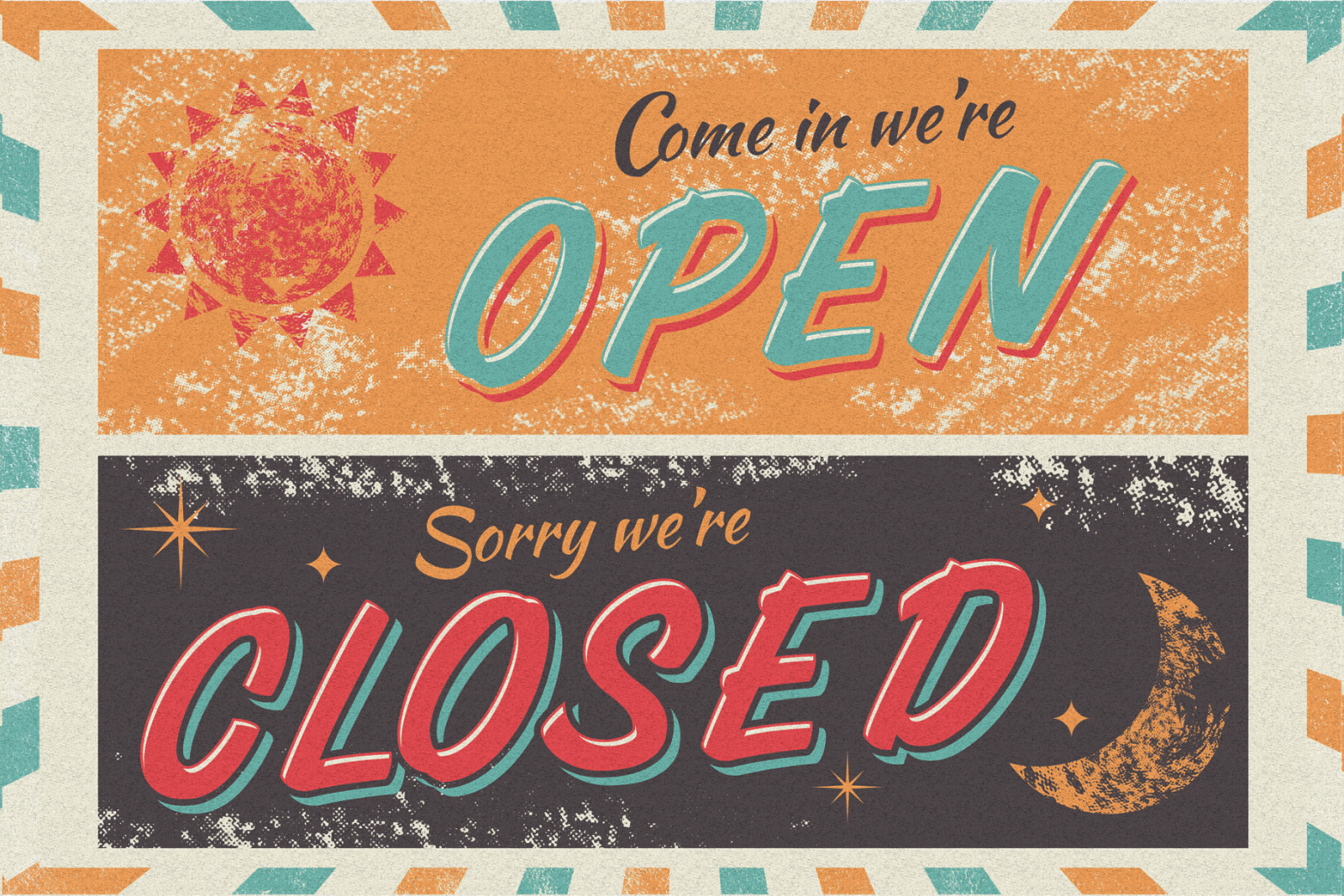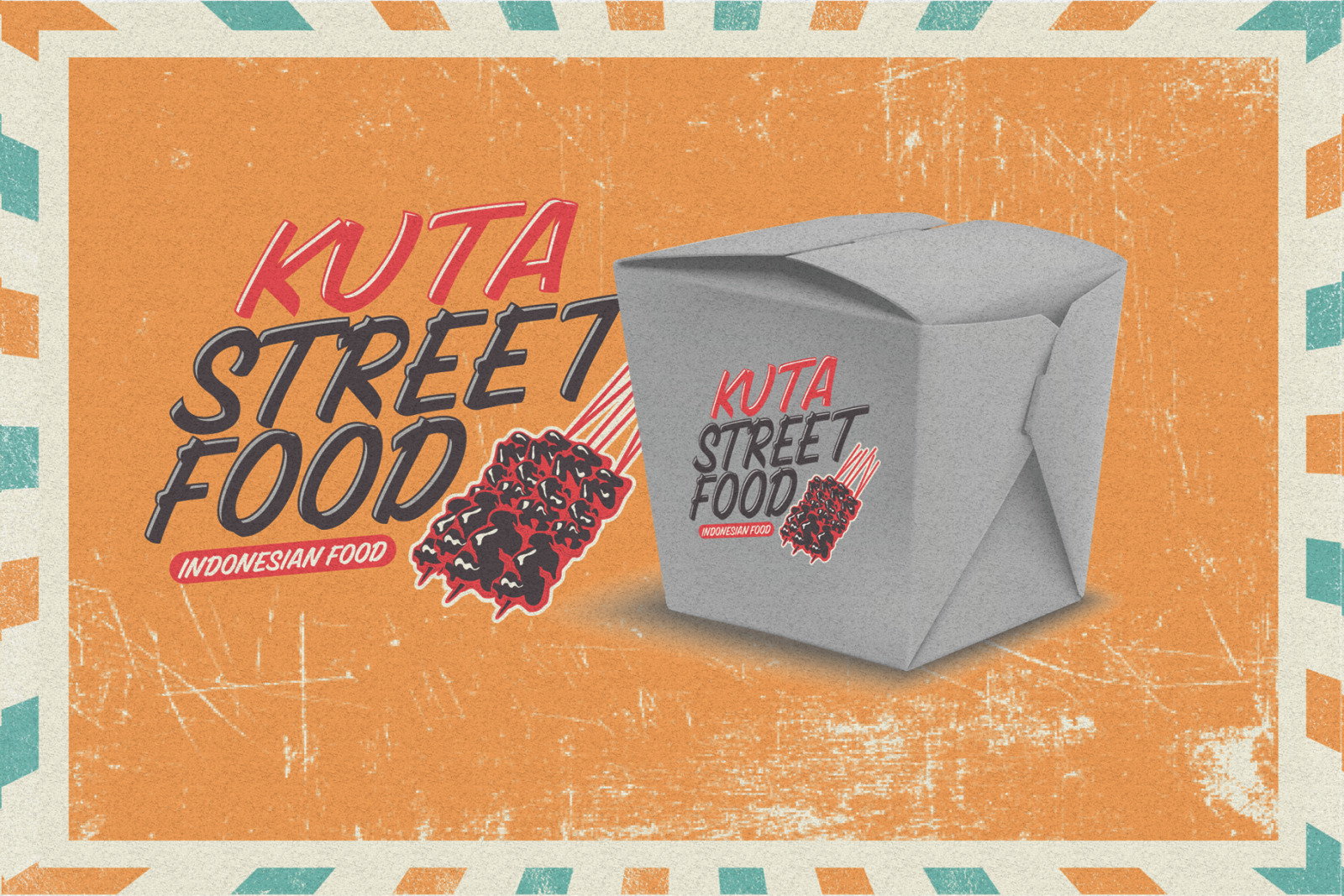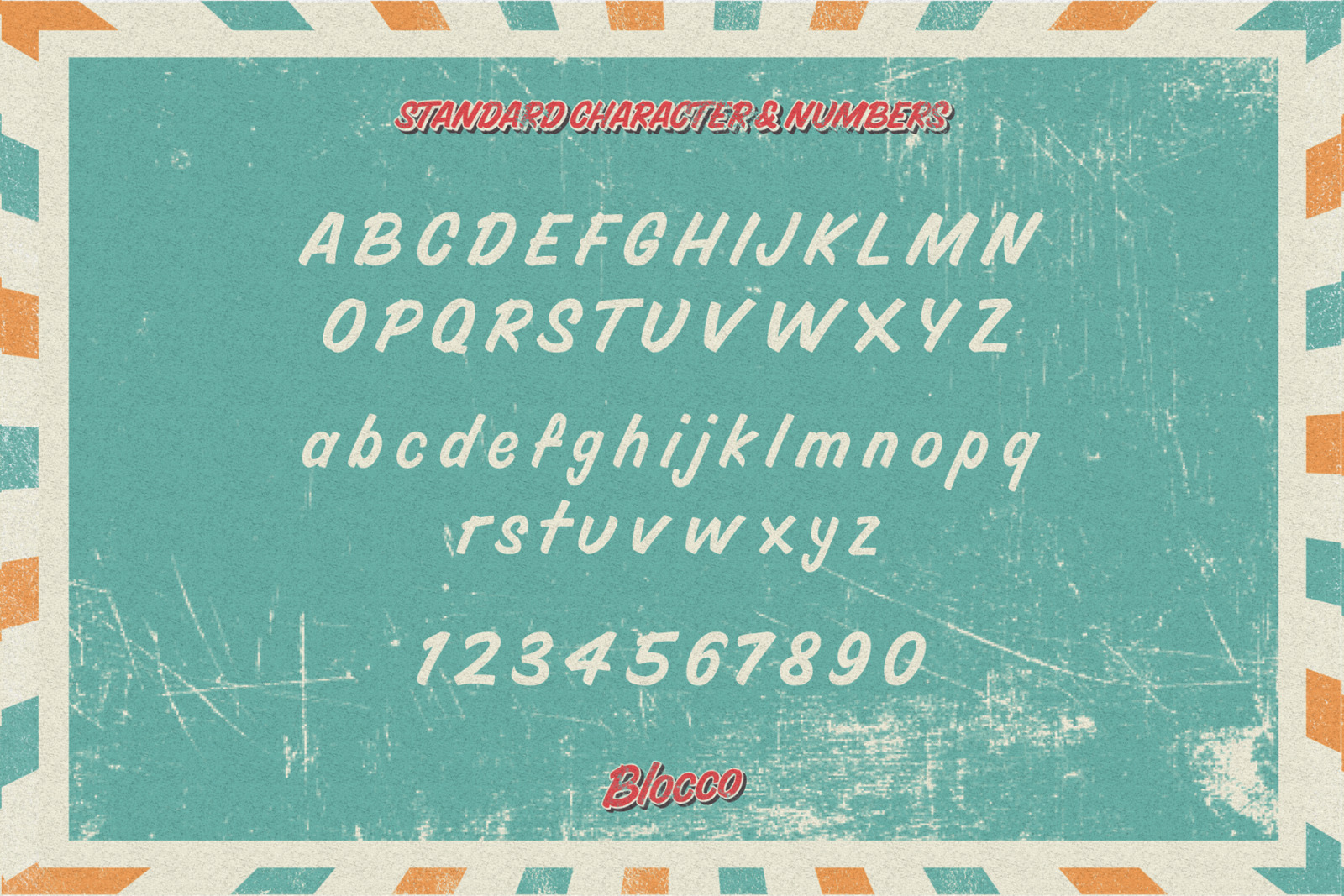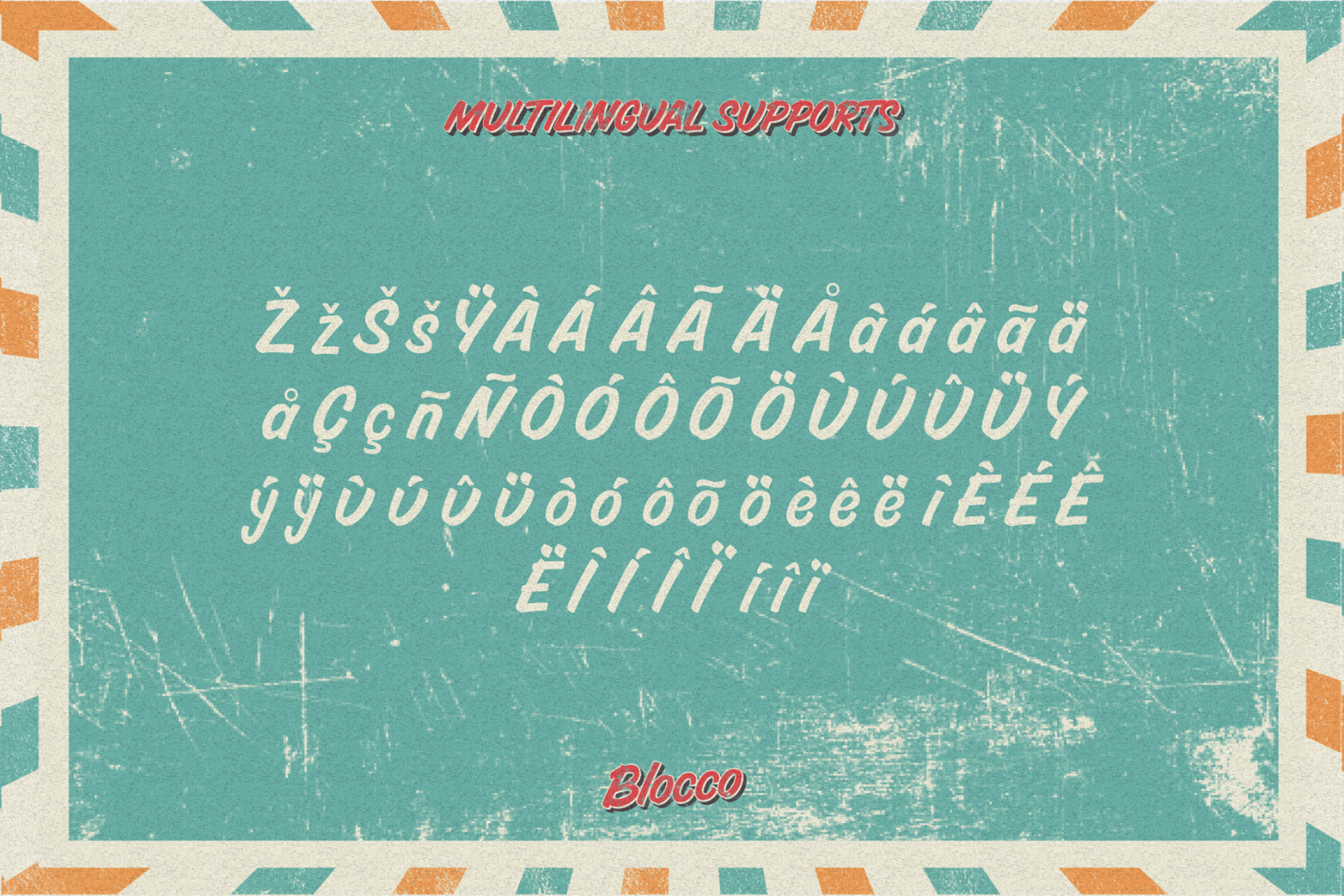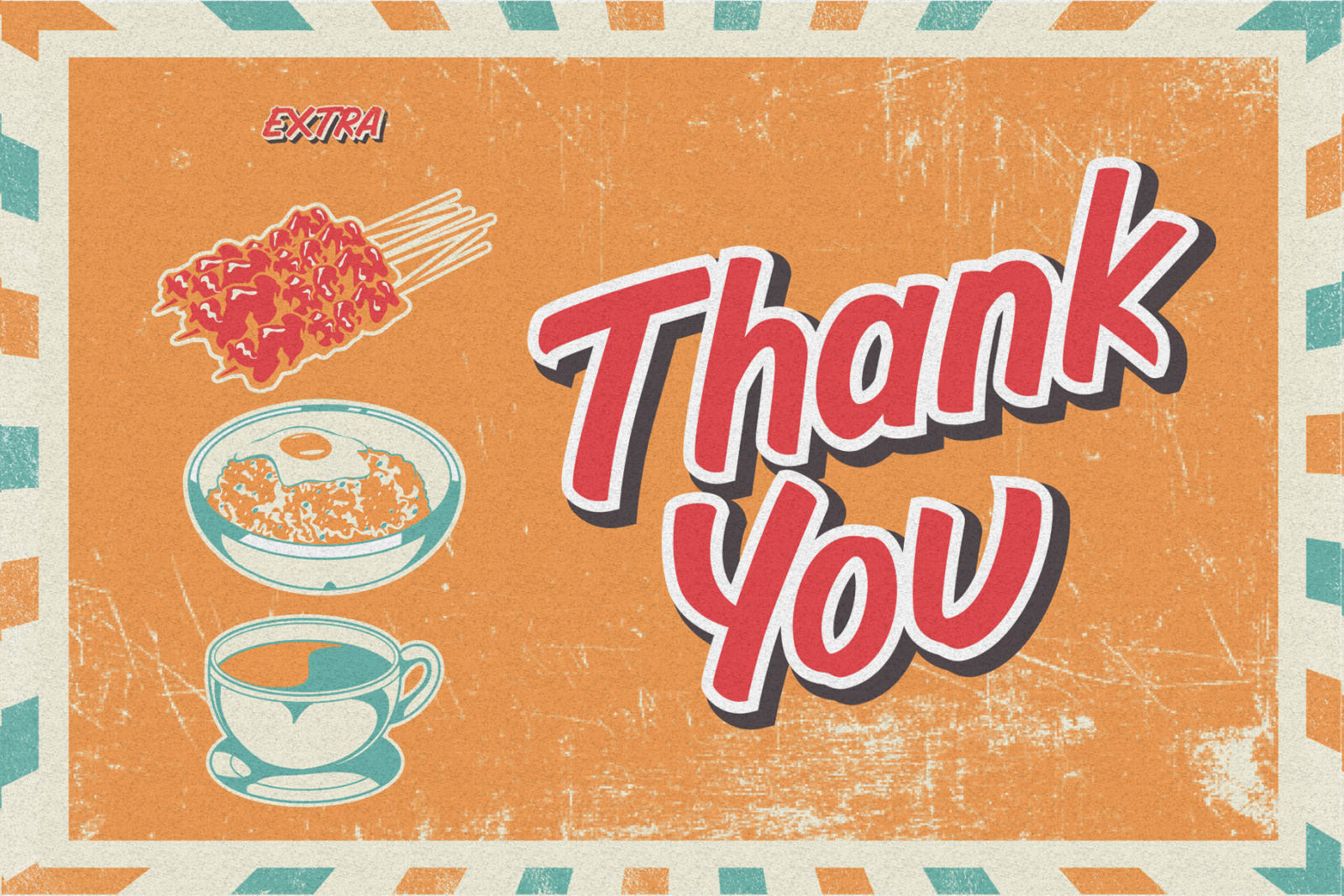
Blocco Font
BLOCCO is a font inspired by Sign Painting Lettering. It will be very suitable for packaging design, branding, advertising, logotype etc.
Alternative Characters.
Ligatures.
Support Multilingual Characters.